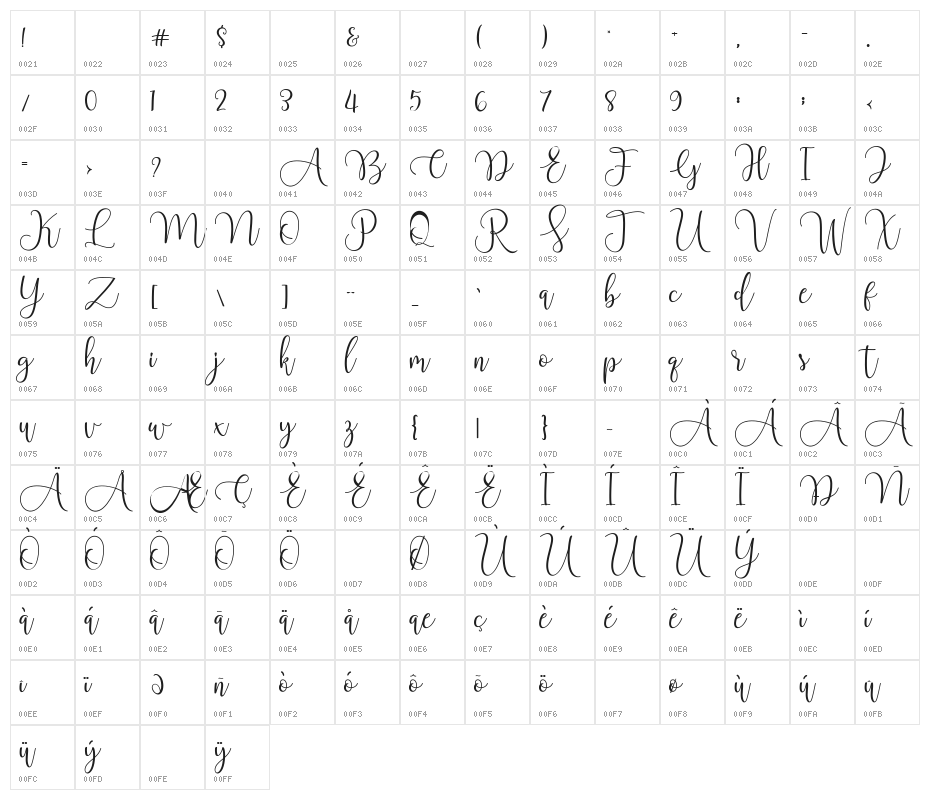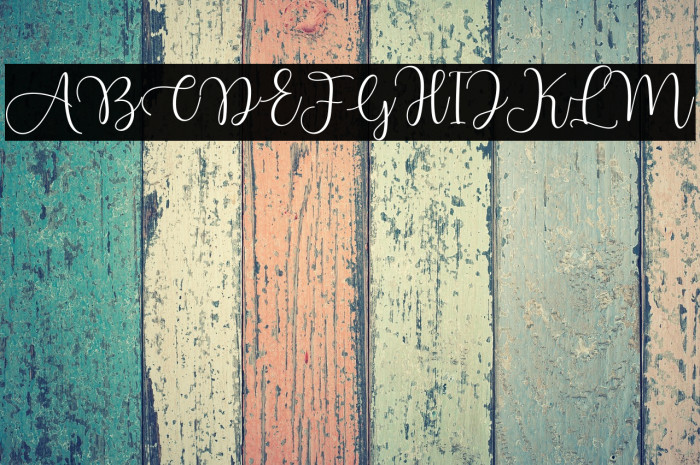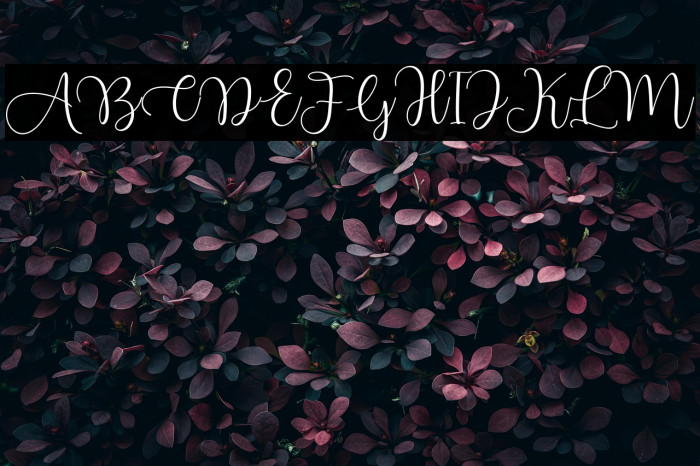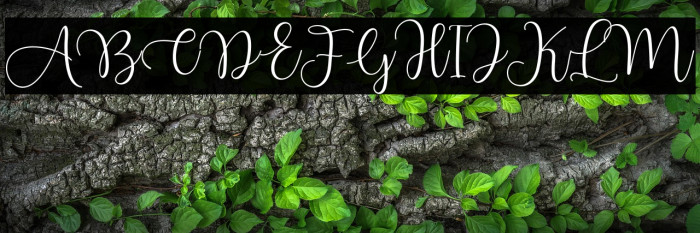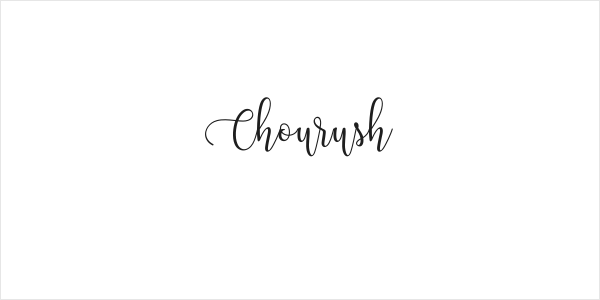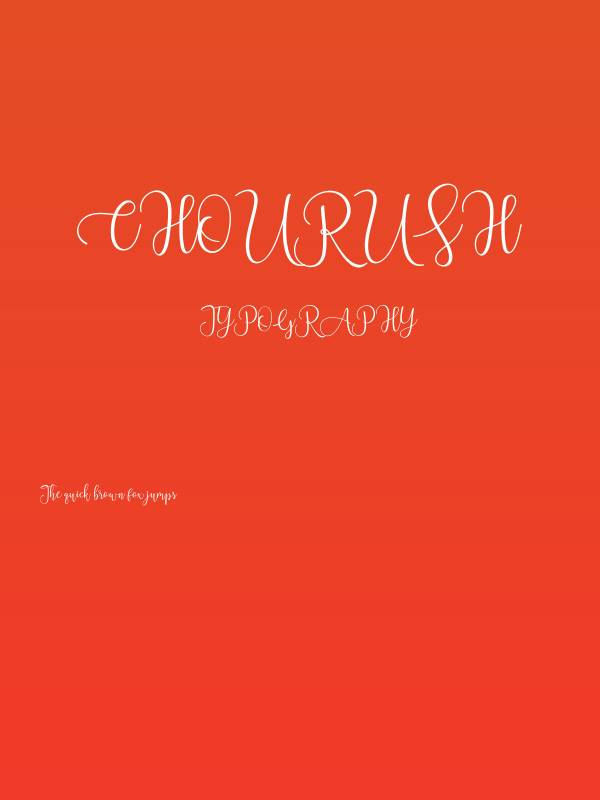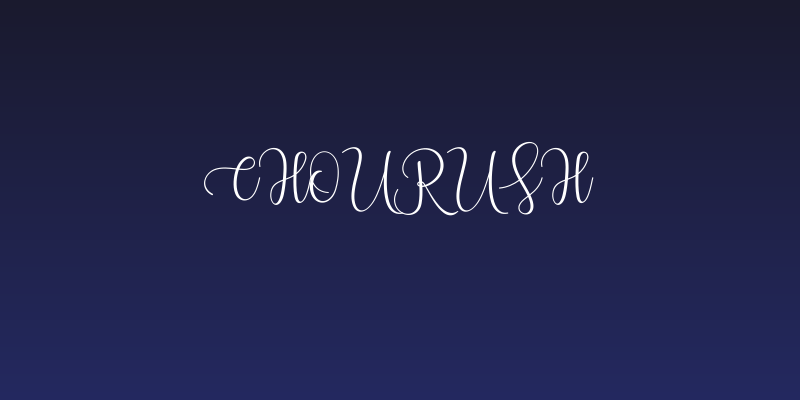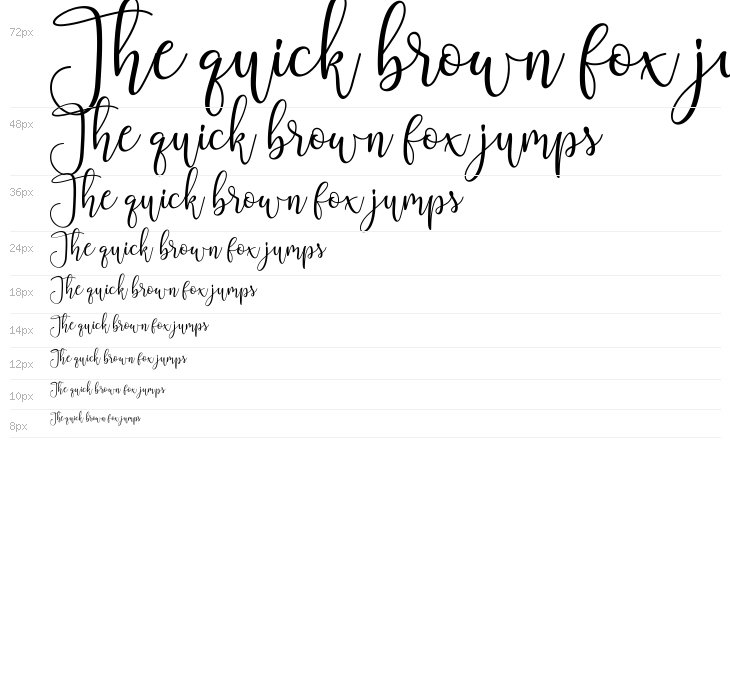
Chourush Font
Chourush Description
This elegant script font features a flowing, cursive style with a modern touch. The uppercase letters are characterized by their graceful loops and swirls, giving a sense of movement and sophistication. The lowercase letters maintain a consistent style, with smooth, rounded forms and a slightly more compact appearance. The numerals are clear and legible, complementing the overall aesthetic. Special characters are thoughtfully designed to match the font's elegant style, making it suitable for a variety of creative applications. The font's overall appearance is both stylish and versatile, perfect for projects that require a touch of elegance and flair.
| Proposed Projects | Ideal for wedding invitations, branding, greeting cards, and elegant logos. |